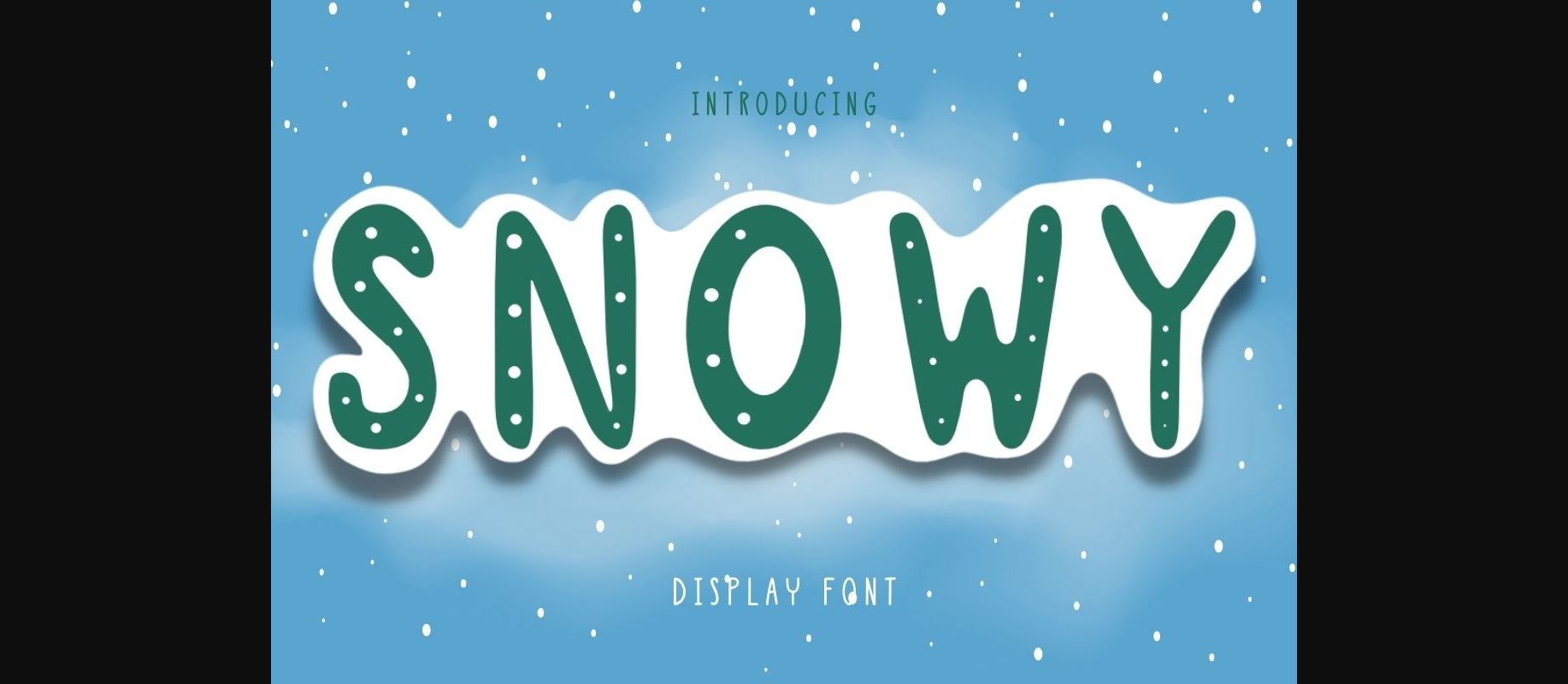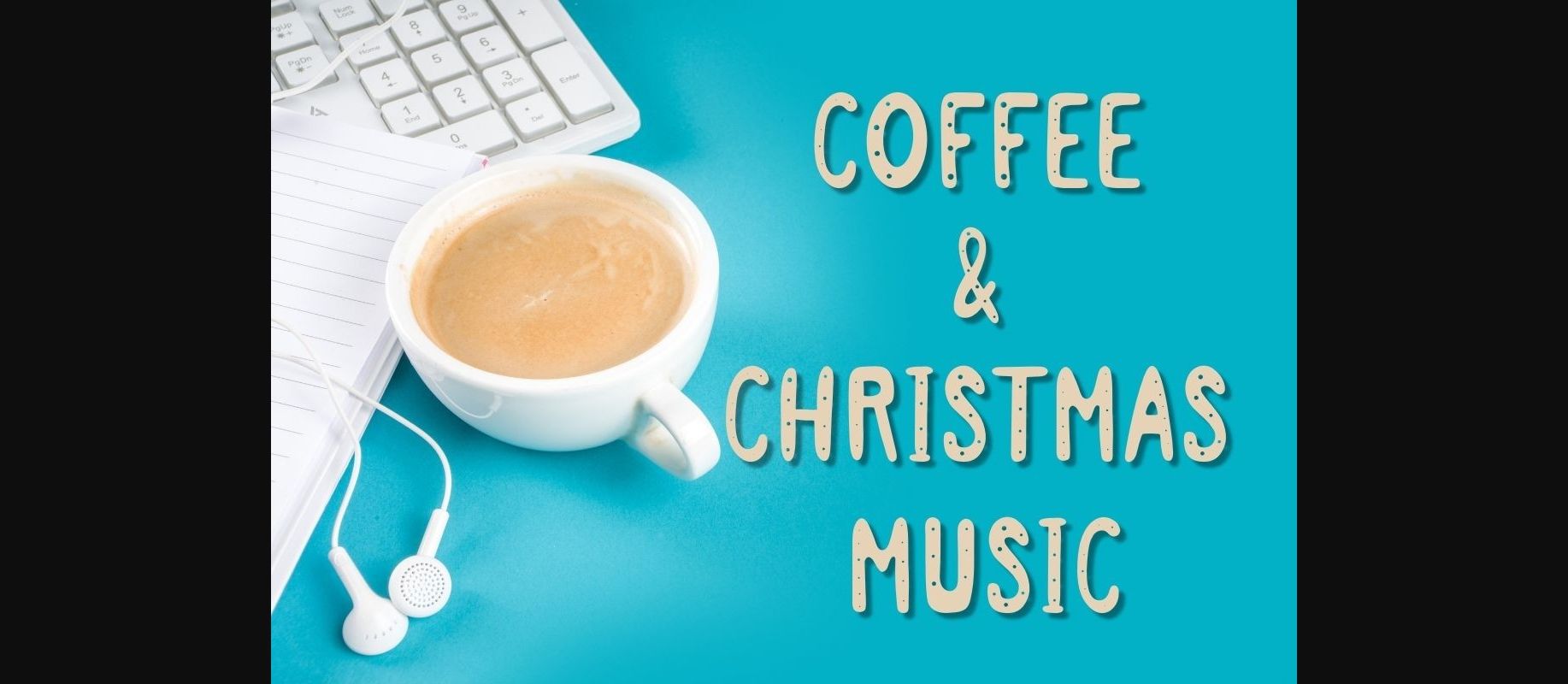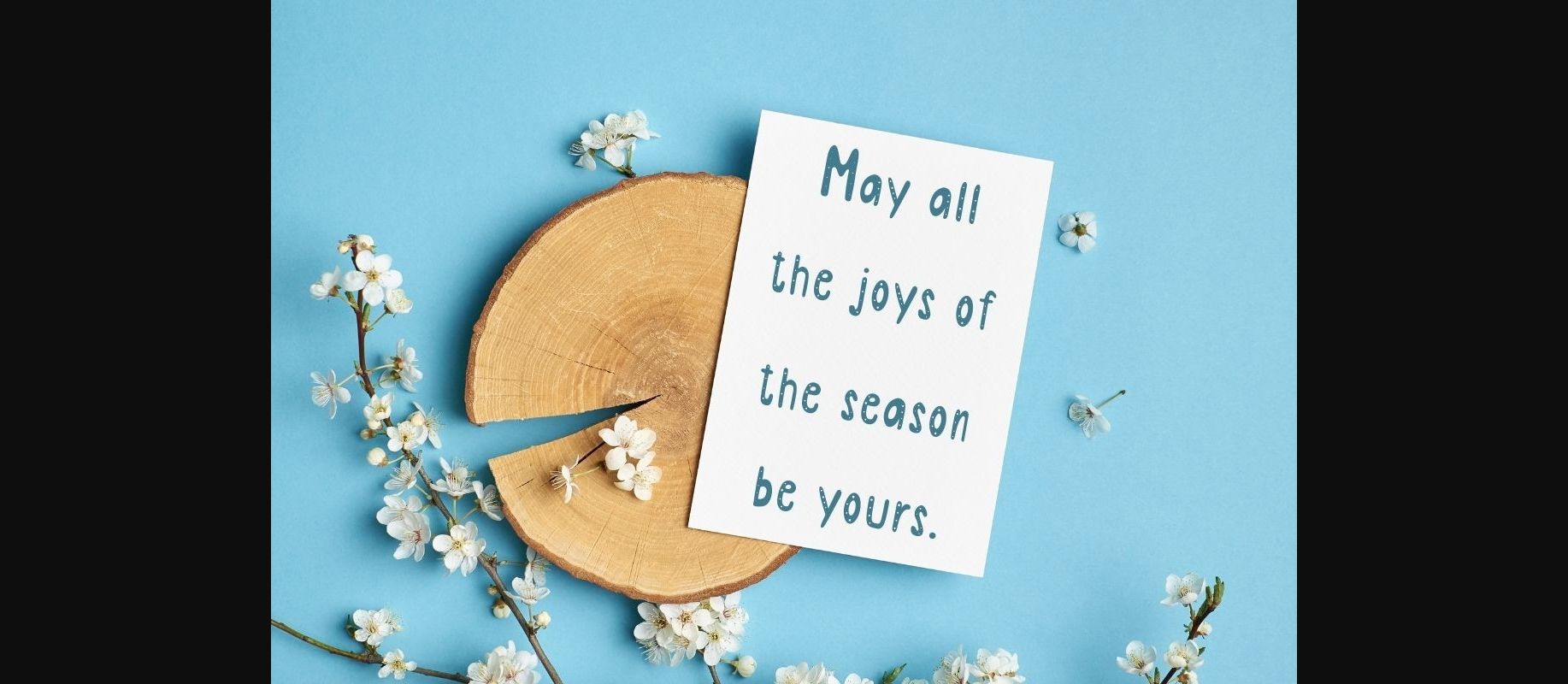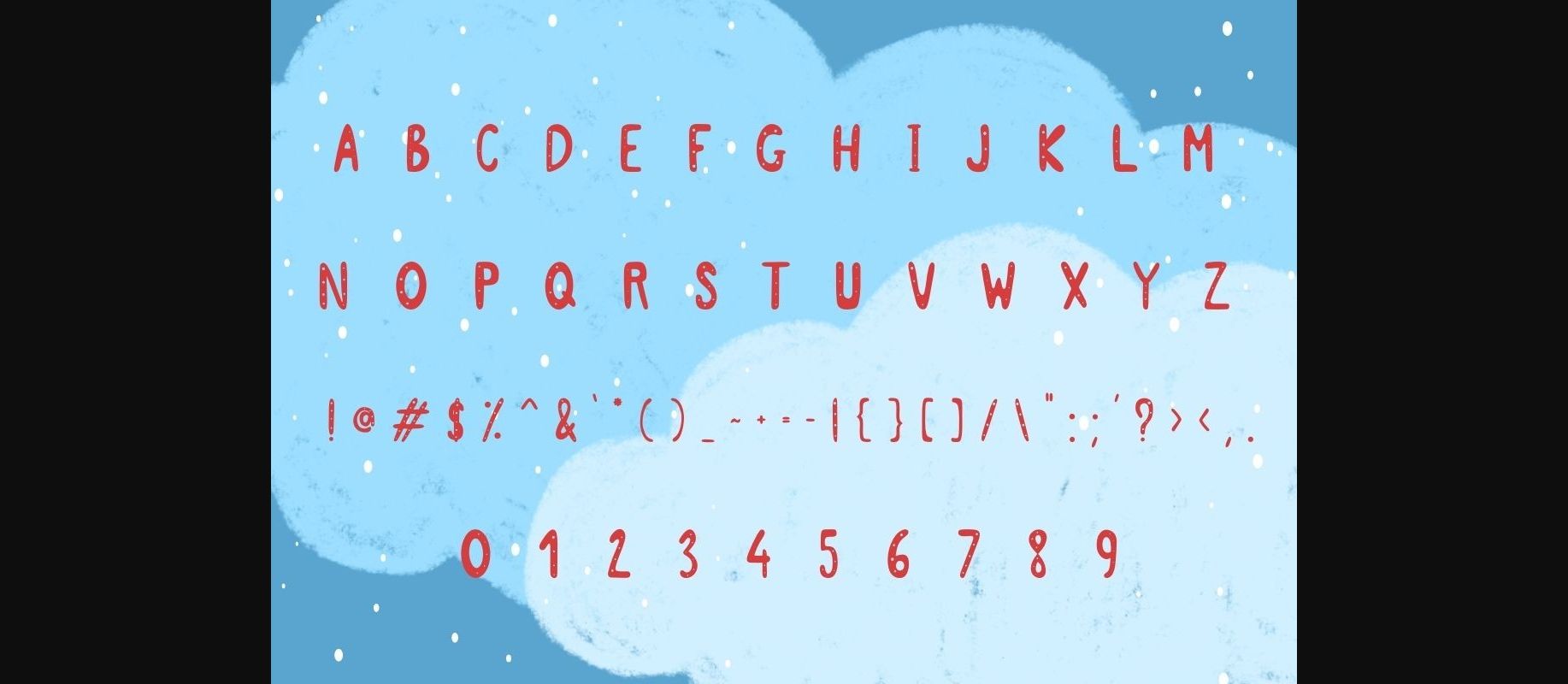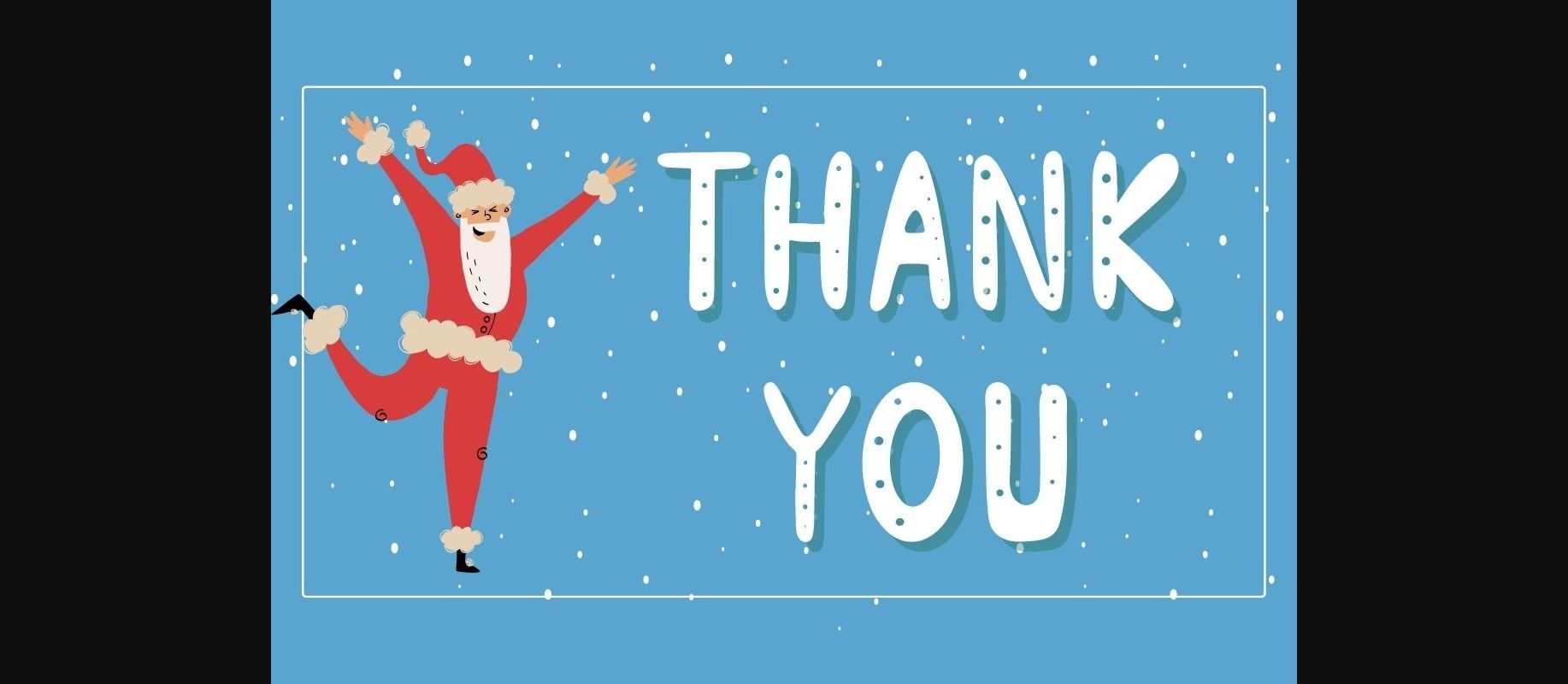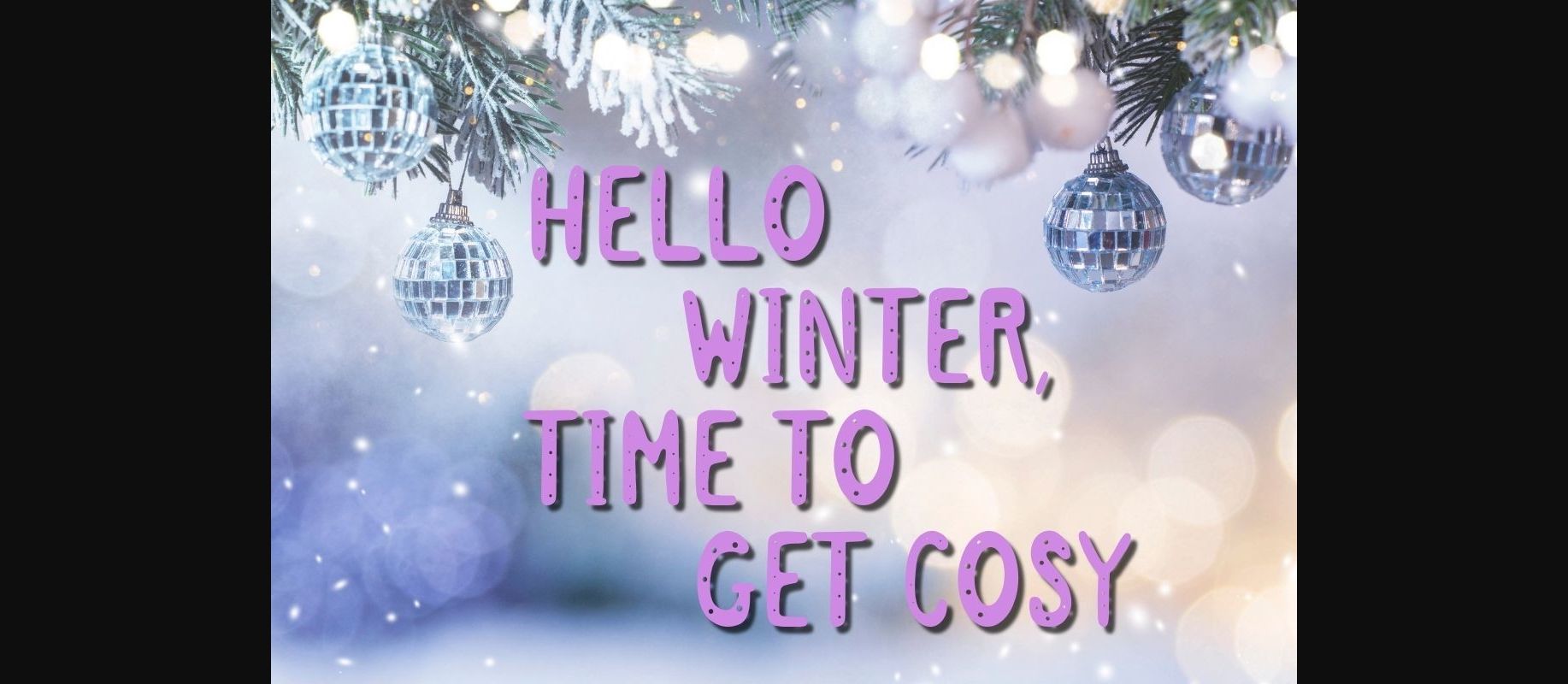
Snowy Font
About Snowy Font
Snowy is a sweet and retro decorative font. These characters are perfect for creating posters, banners, advertising materials, covers, and many more.
Add some flair to your designs with this cute font!